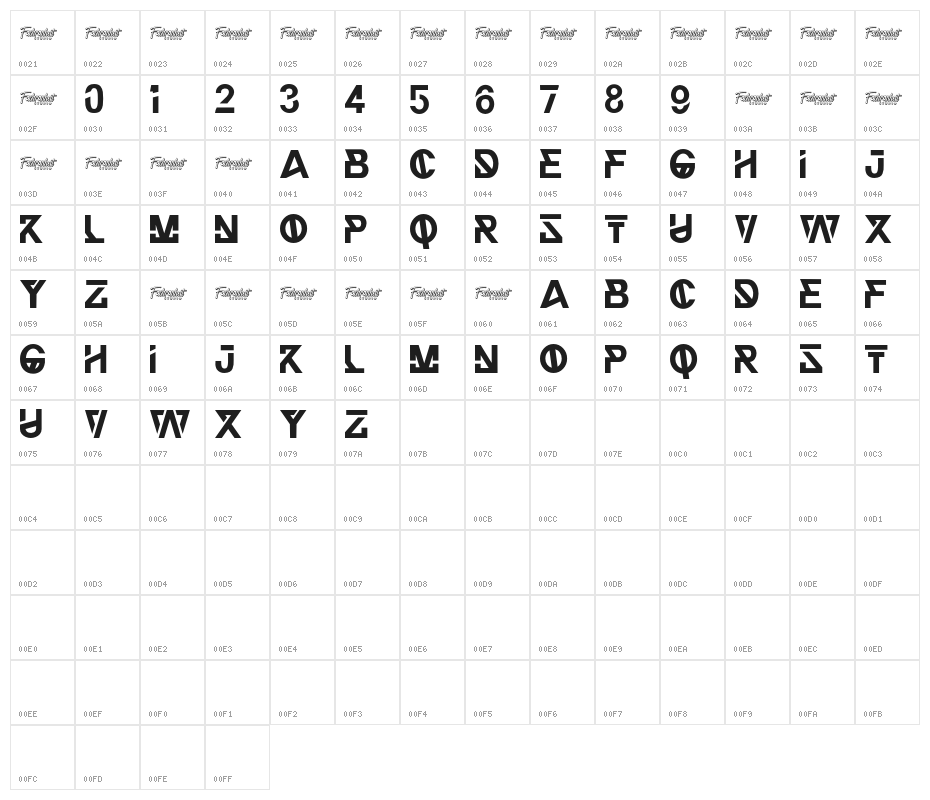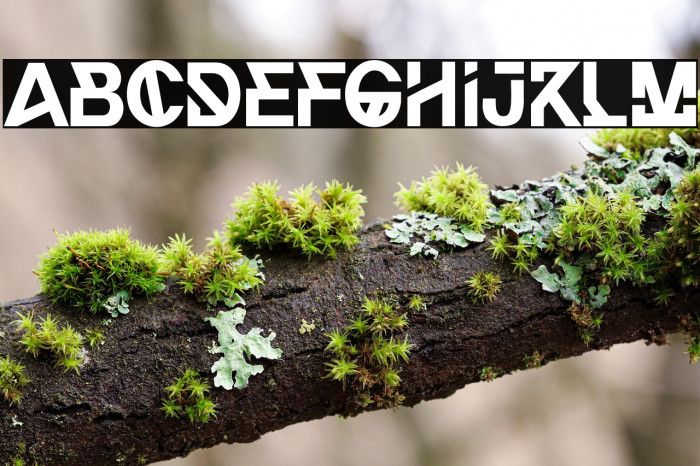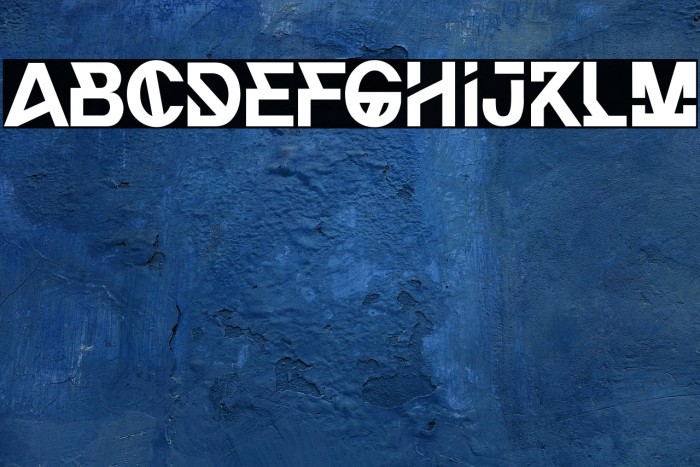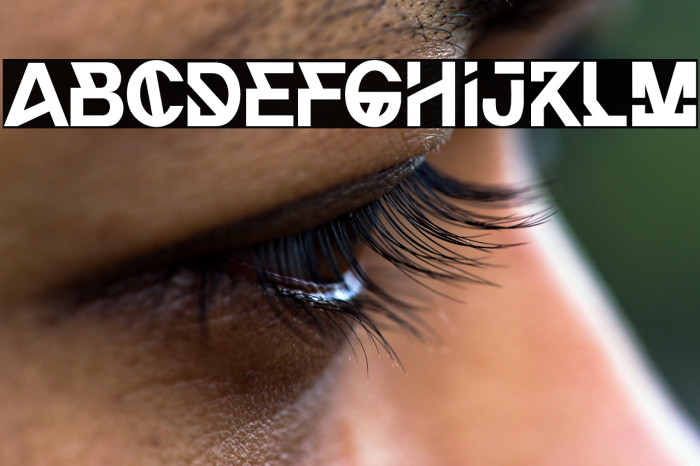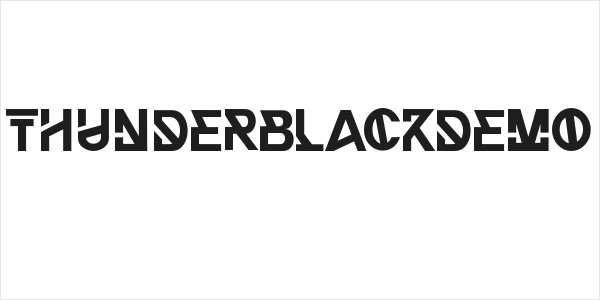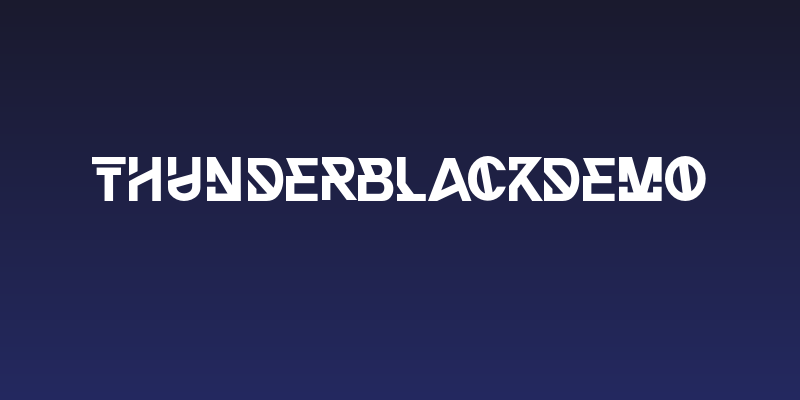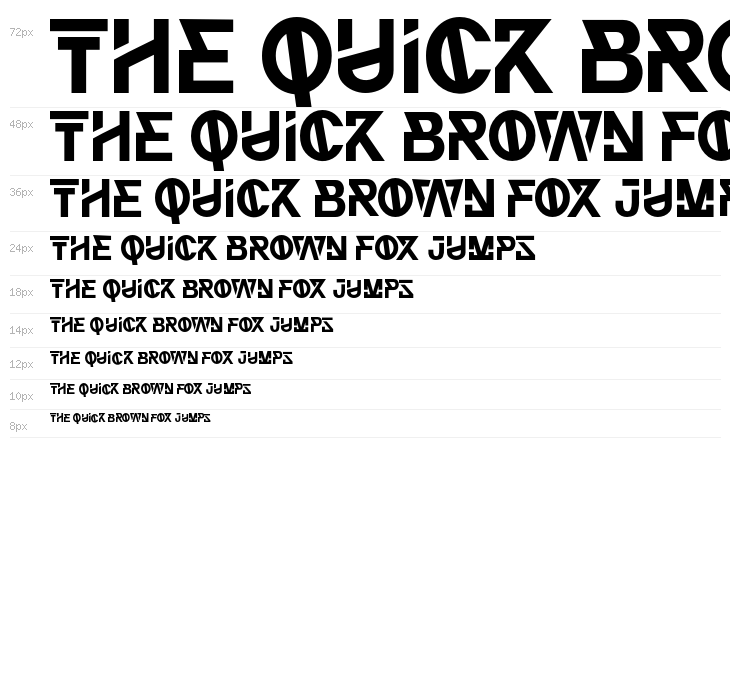
THUNDERBLACKDEMO Font
THUNDERBLACKDEMO Description
This font features a bold and striking design with geometric and angular elements. The characters are constructed with sharp edges and a futuristic style, giving it a unique and modern appearance. The uppercase letters are particularly distinctive, with some characters incorporating cut-out sections and asymmetrical shapes. The numbers follow a similar design ethos, maintaining consistency across the typeface. This font is highly decorative and makes a strong visual impact, suitable for projects that require a bold statement.